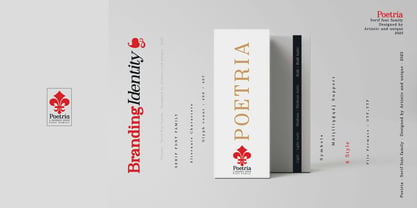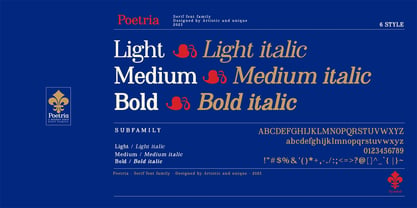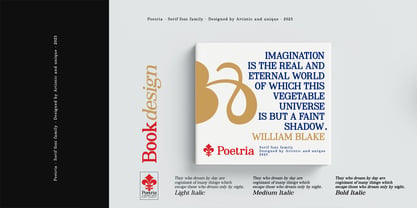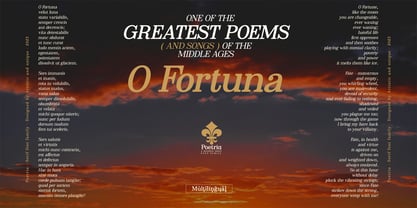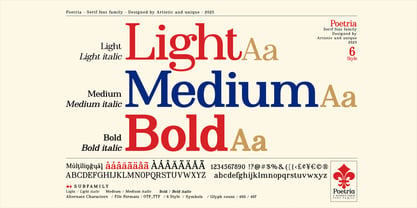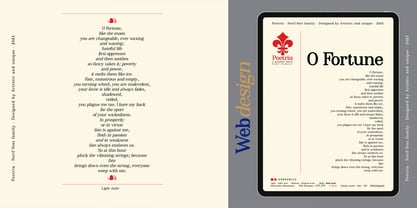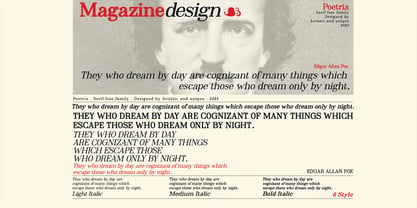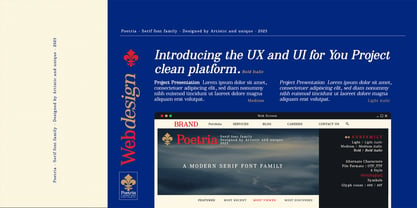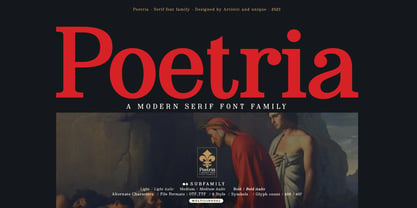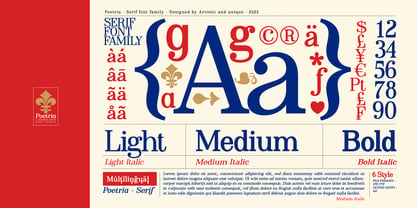
Poetria
Poetria - Serif Font Family - 6 Styles - Multilingual Support.
With six distinct styles and multilingual options, the Poetria serif font family is ideal for those seeking elegance in their projects.
Enhance your projects with the Poetria font, which offers high readability and a striking appearance in both print and digital formats, from elegant headlines and body text to brand identity, luxury packaging and logo design, publishing, and visual design.
This font's flexibility shines through in a wide range of applications, from editorial work and magazines to brand and web design. By seamlessly integrating standard characters, you can achieve clean text.
The nostalgic appeal and aesthetics of the serif font blend seamlessly with contemporary design, making it a valuable resource in today's modern world.
Key Features:
• 6 distinct styles
• Rich glyph options
• Multilingual support
• Perfect for branding and editorial design
• Suitable for web and logo design.